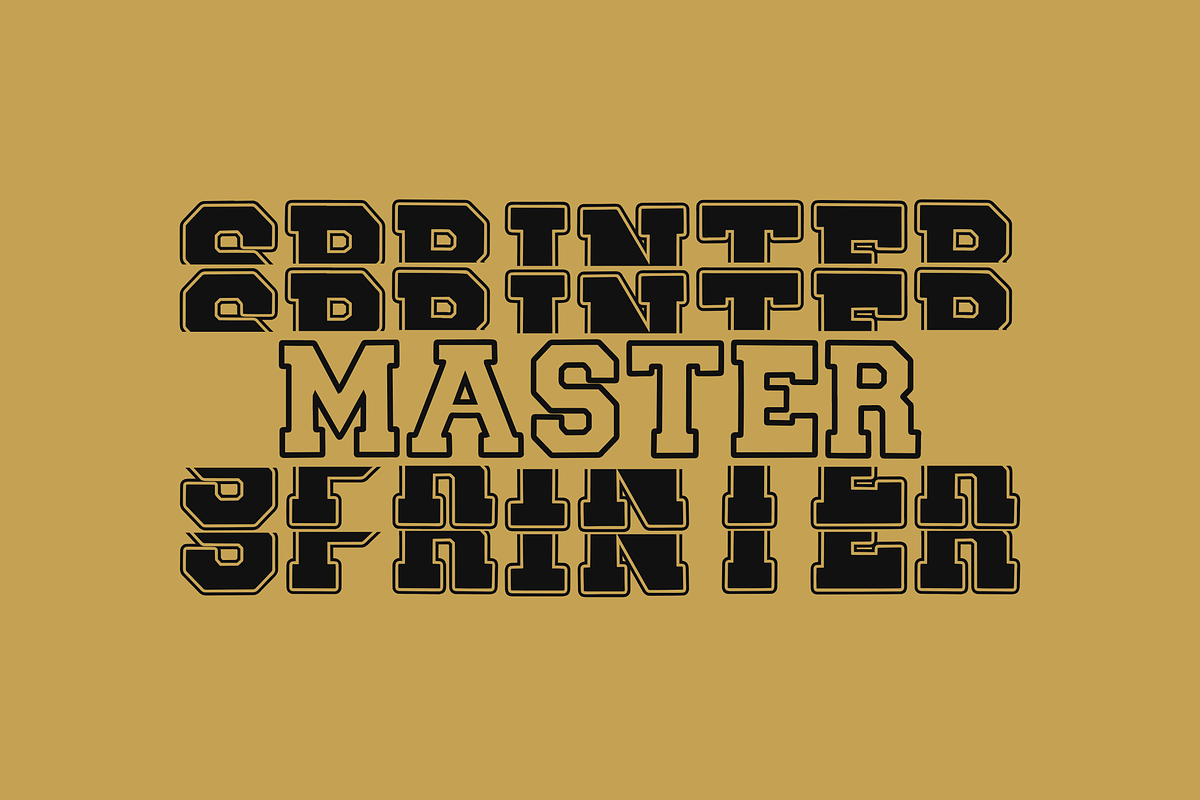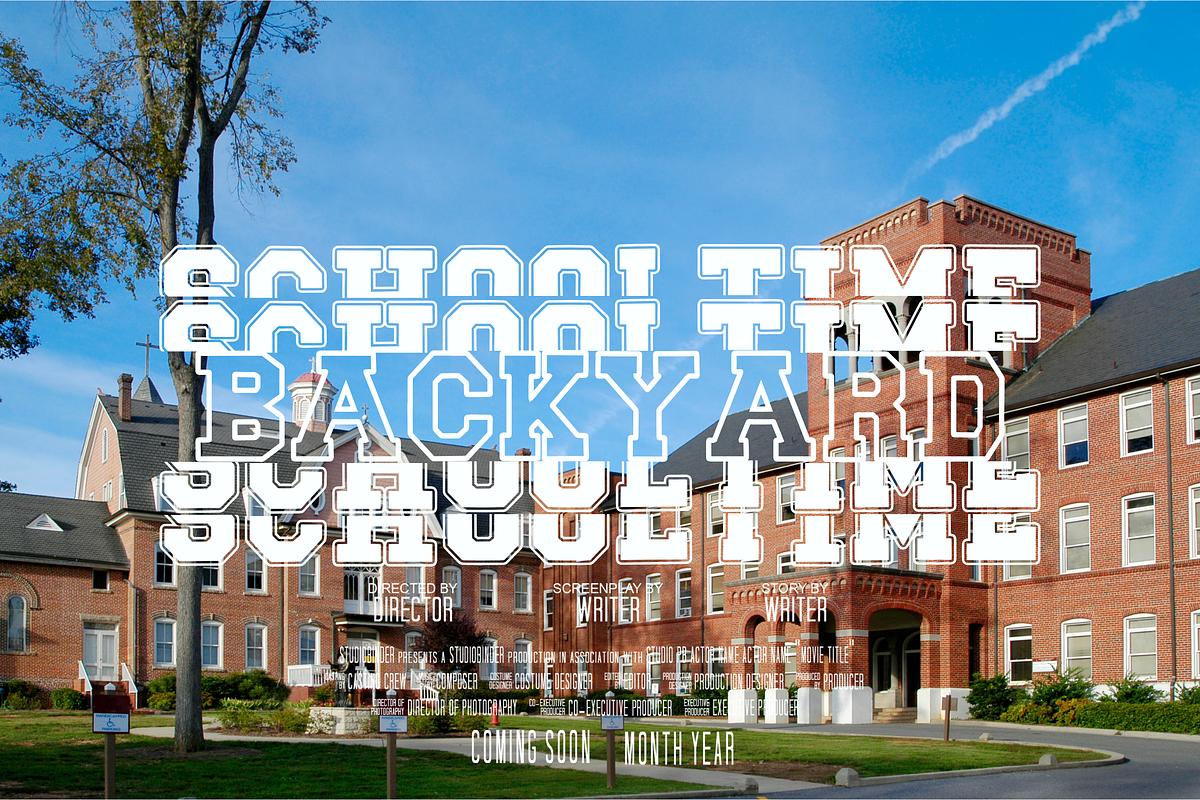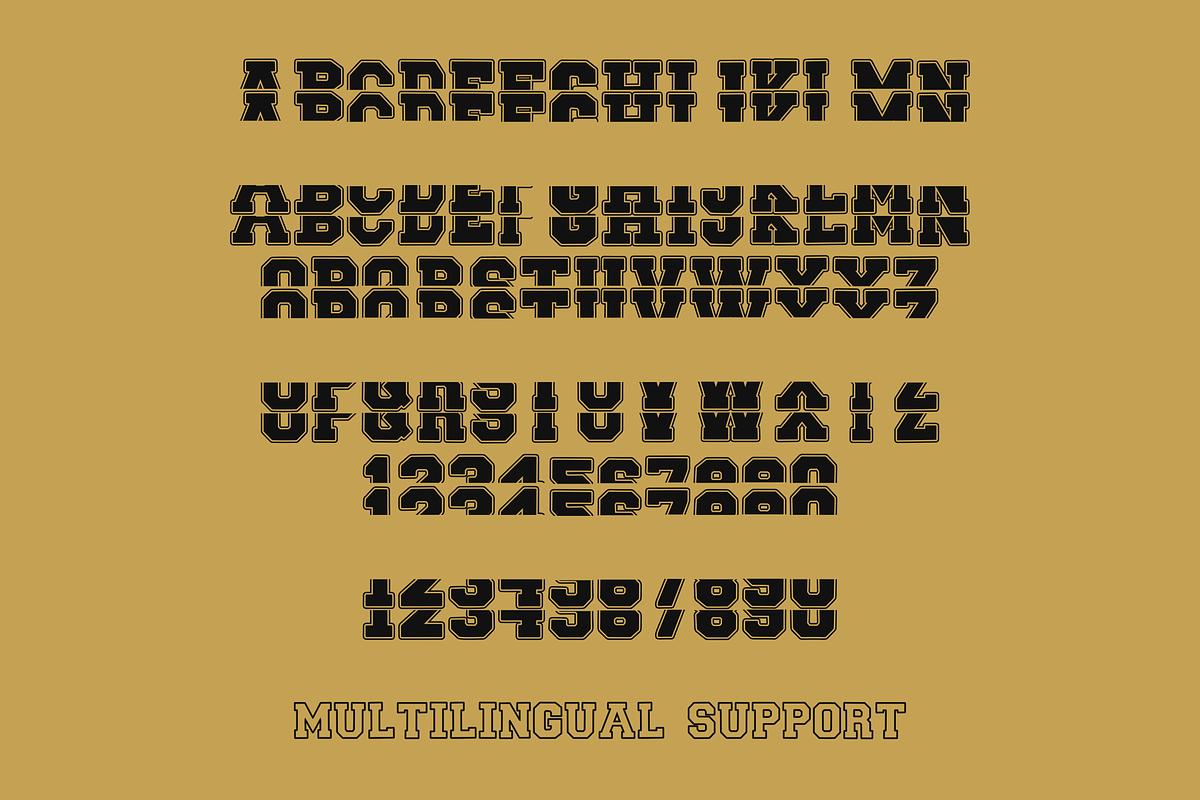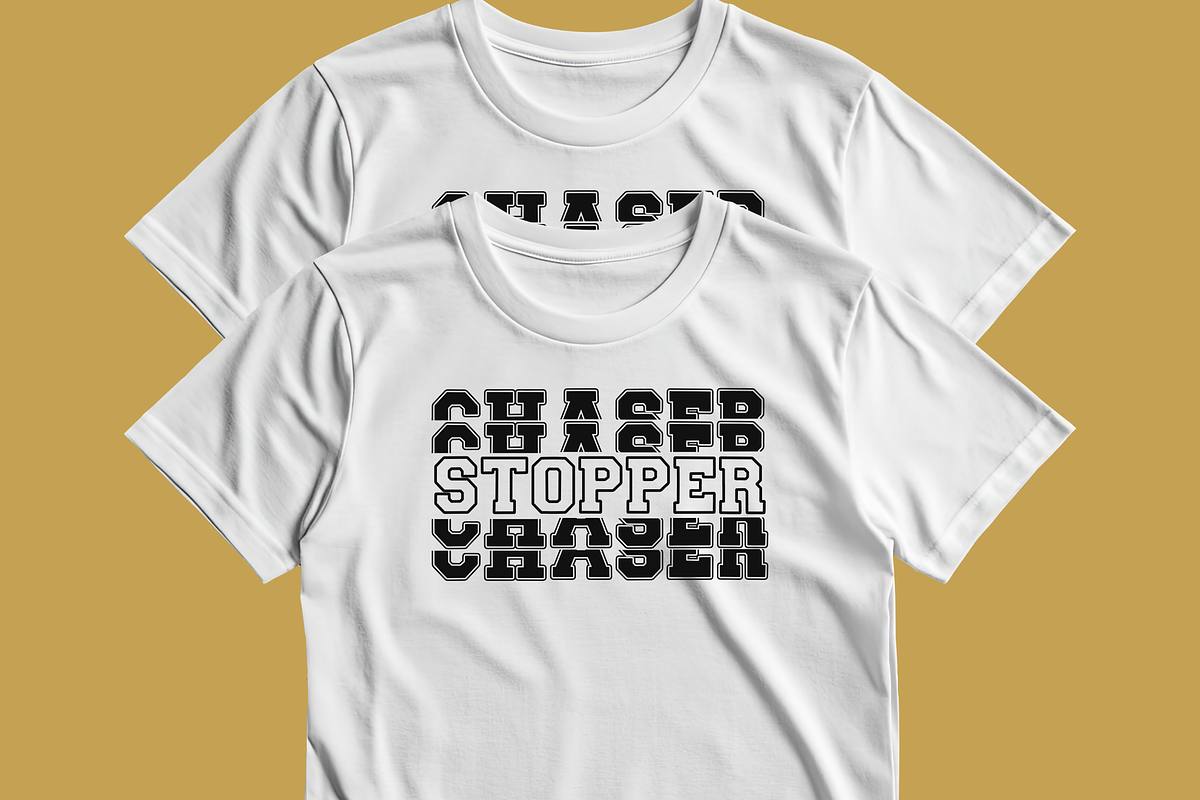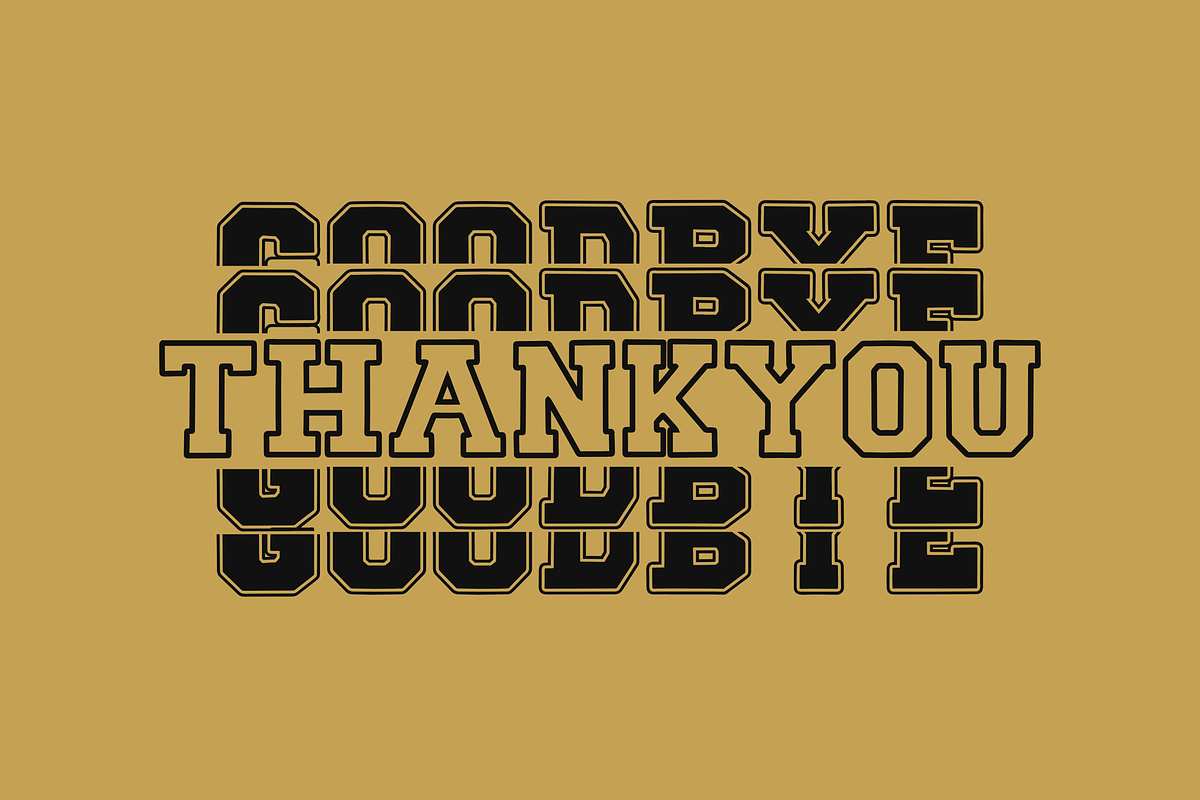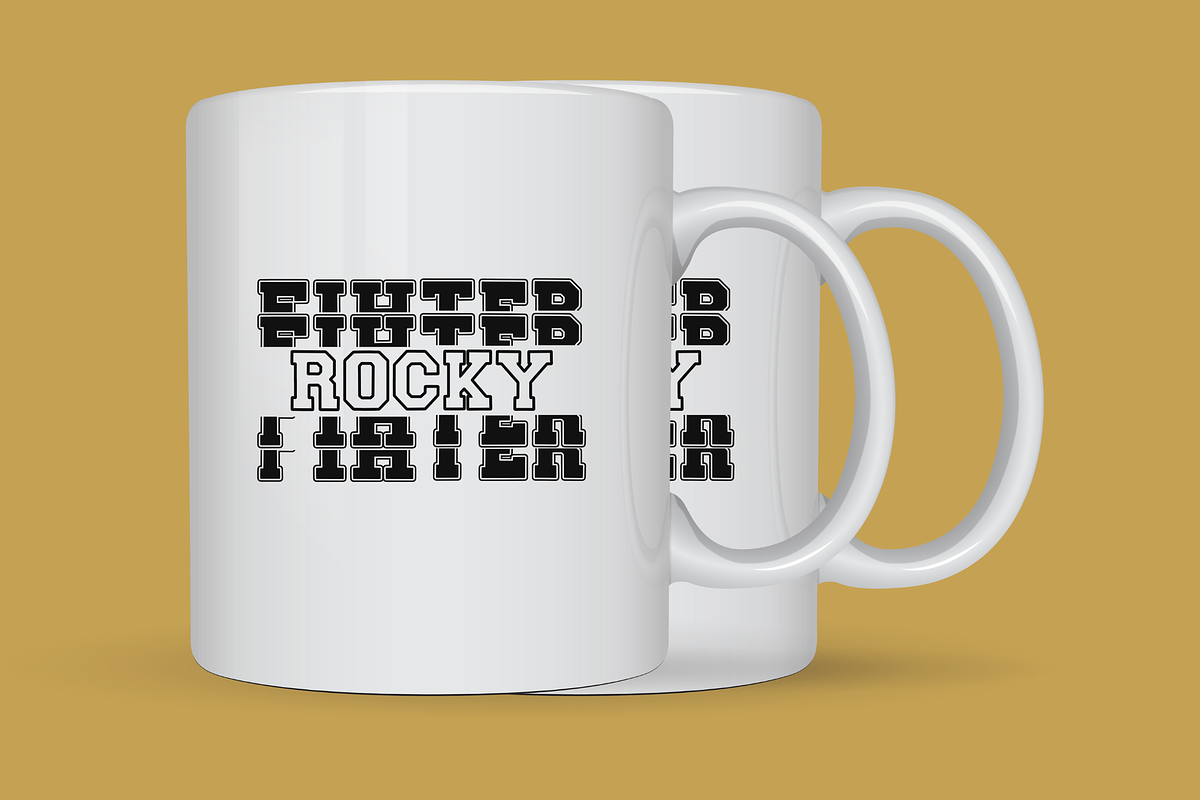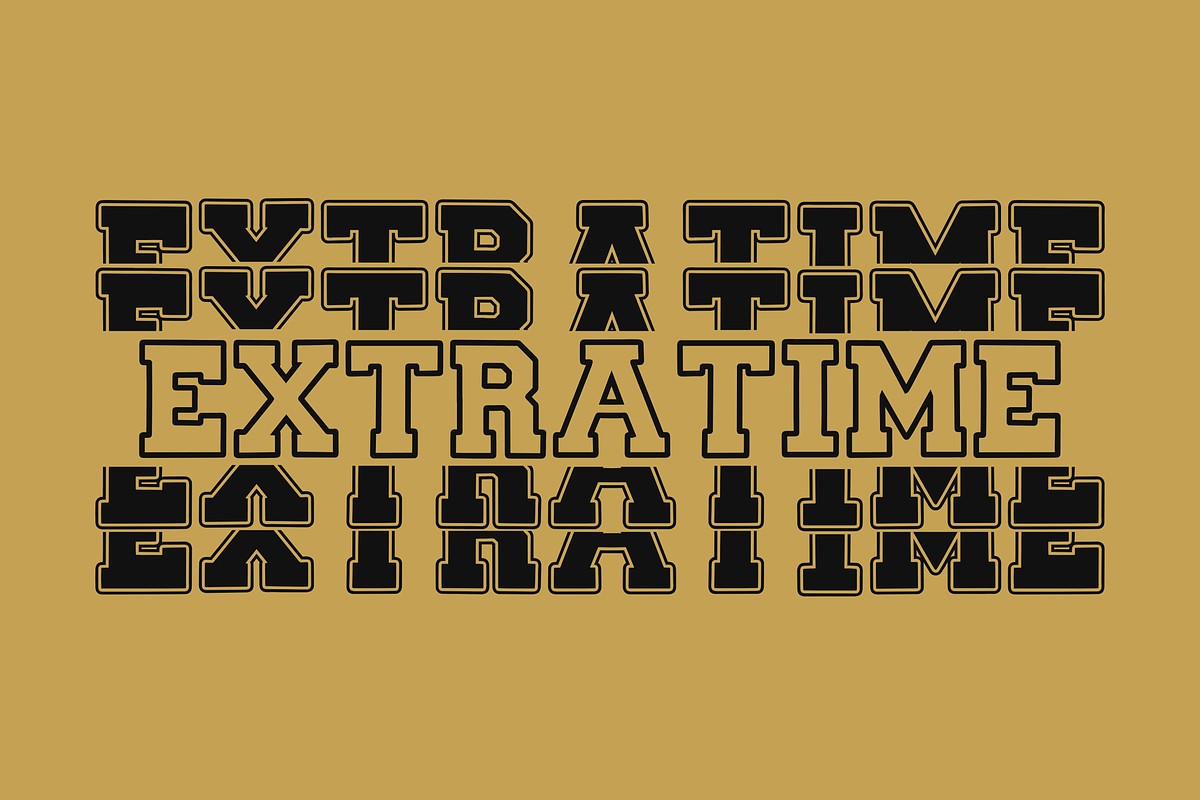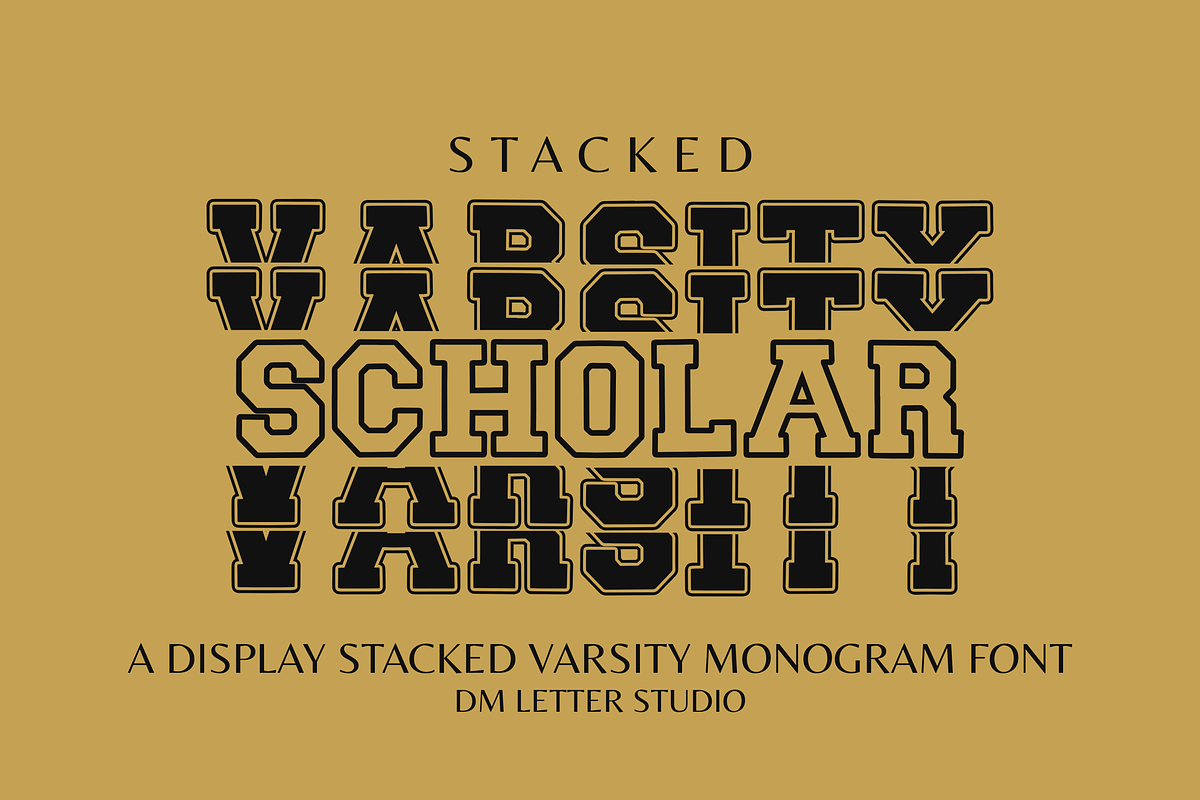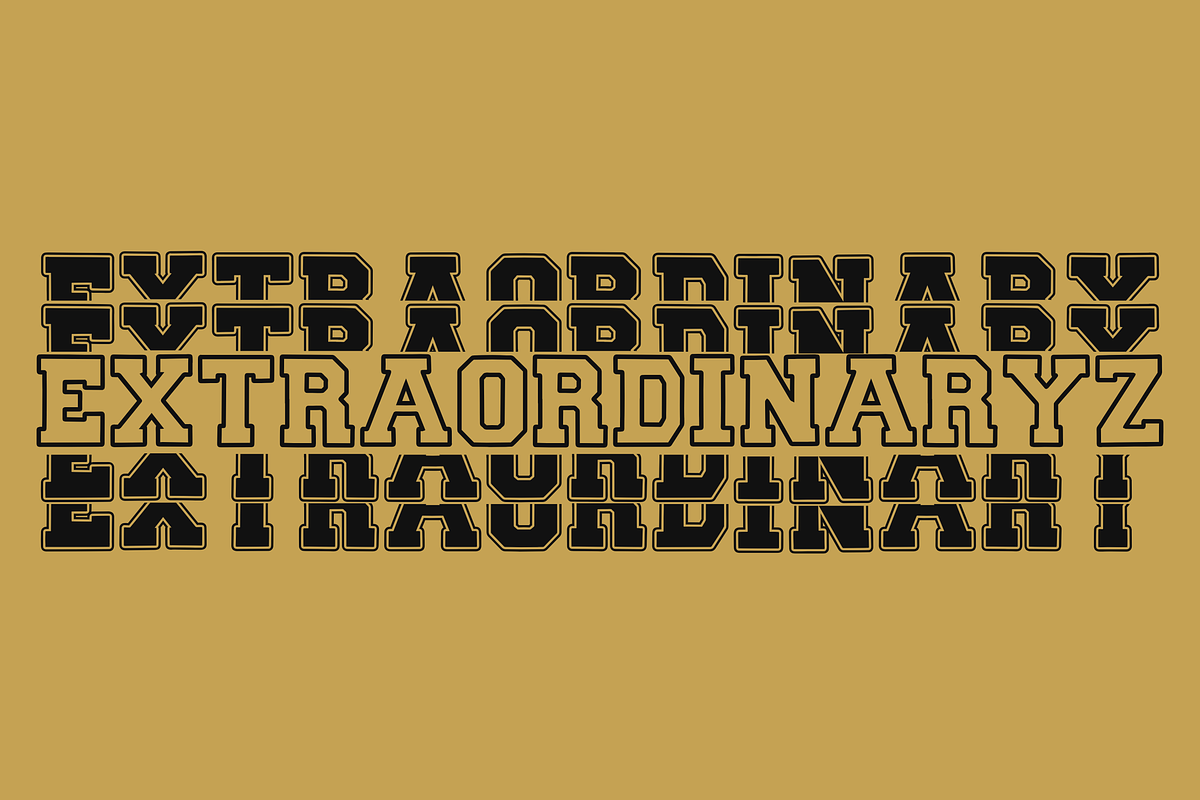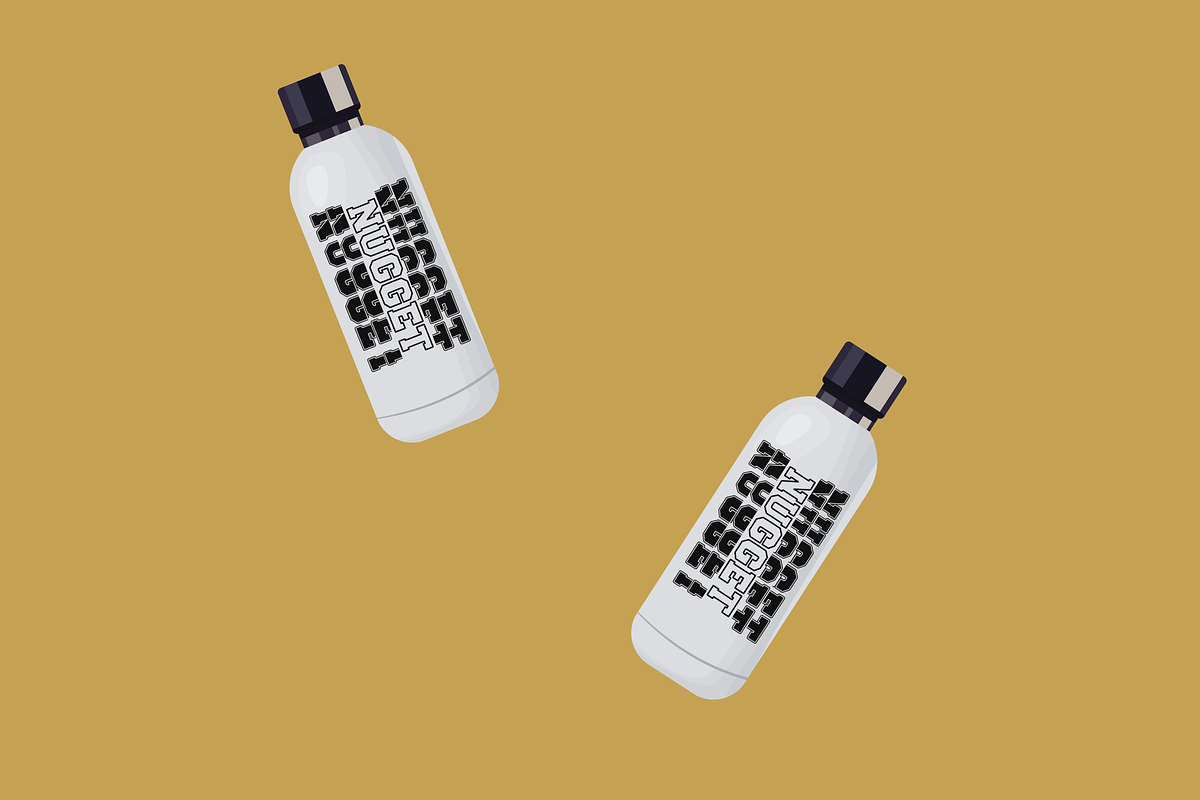
Scholar Varsity Stacked Monogram
Scholar Varsity Stacked Monogram – Bold Block Letters in Vertical Varsity Style
Scholar Varsity Stacked Monogram is a powerful typeface that fuses classic varsity energy with a fresh stacked monogram layout. Perfect for creators who want a bold, collegiate feel in a condensed vertical format, this font captures the essence of athletic prestige, school pride, and custom monogram design—all in one.
Designed around the concept of stacked varsity monogram font, each letter is structured in a clean two-line format to fit narrow spaces without sacrificing impact. This makes it an ideal choice for monogram logos, sports merchandise, class gear, or even academic certificates. Whether you’re designing team jerseys, school banners, personalized graduation gifts, or digital classroom resources, Scholar Varsity Stacked Monogram delivers clarity and strength.
The bold all-caps style, sharp edges, and clean letter spacing allow your text to command attention. Use it as a standalone hero type or pair it with cursive or script fonts for contrast. Its monoline weight ensures it prints well on apparel, decals, or vinyl projects, making it a reliable choice for Cricut/Silhouette users, small shop owners, and print-on-demand creators.
With its stacked presentation, this font maximizes space while maintaining the visual punch that varsity fonts are known for. It's a bold solution for those who want their initials or titles to look refined, athletic, and unmistakably custom.
Stacked varsity block lettering in monogram format
Perfect for school projects, team branding, and monograms
Bold uppercase set with punctuation & multilingual support